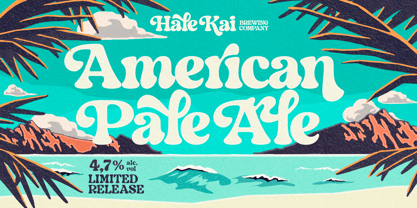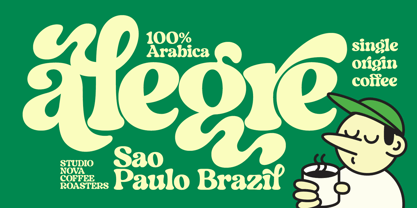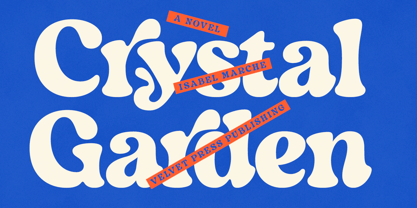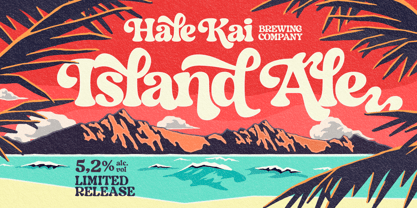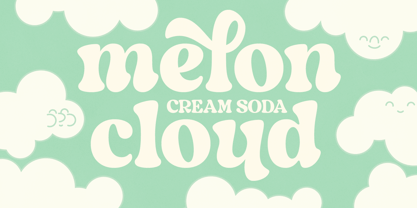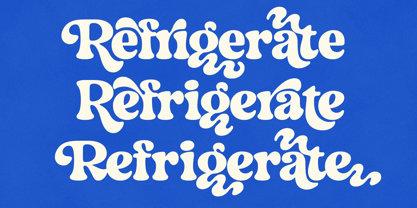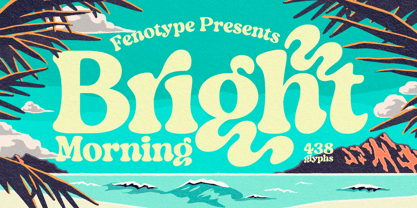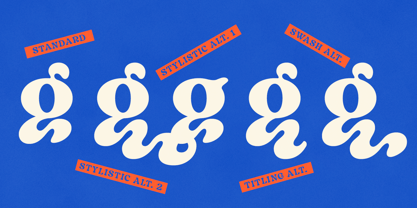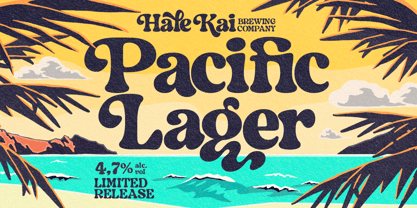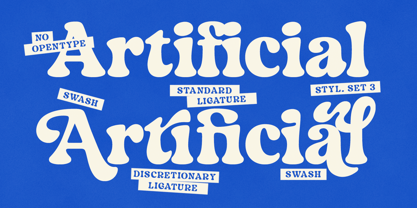
Bright Morning
The Bright Morning Font Family was designed by Emil Karl Bertell and published by Fenotype. Bright Morning contains 1 styles. More about this family
Happy morning! Bright Morning is a bold and plush rounded serif with plenty of nostalgia and a touch of psychedelia. Bright Morning has large h-height making it ideal for large scale display use. By applying OpenType -features, you can squeeze the letters even tighter together, placing lowercase a,c,e,m,n,o,p,r,s,u,v,w,x,y or z under the vertical extensions of Swash “r” or “f” -for example, to make the text even bigger!
Bright Morning is equipped over 100 alternate characters that you can use to make customized headlines. Access the alternates in any OpenType -savvy software from Swash or Titling Alternates, several Stylistic Sets & Discretionary Ligatures.